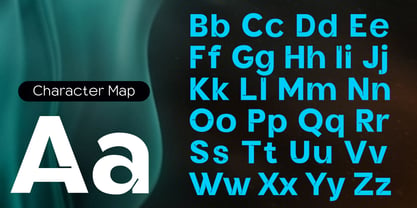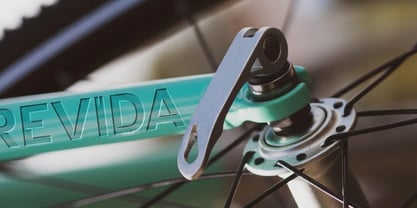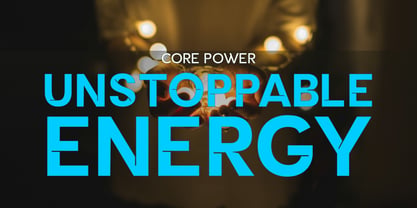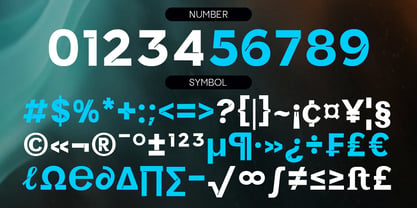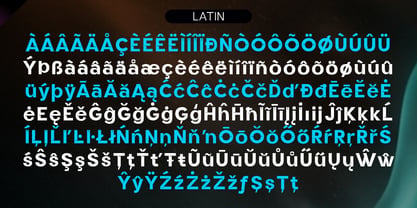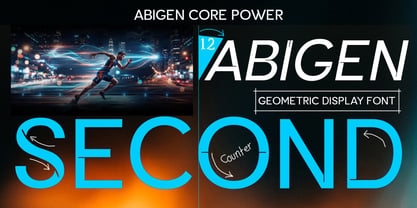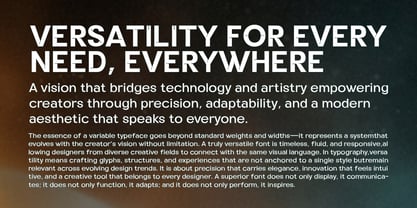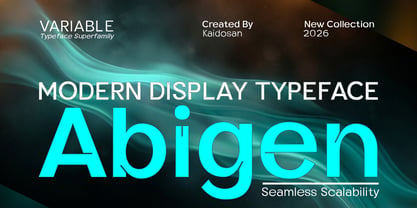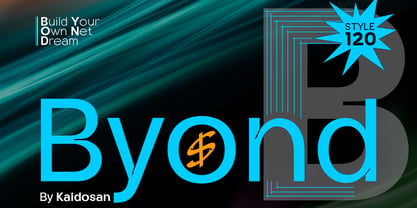
Abigen
by Kaidosan
The Abigen Font Family was designed by Muhammad Ansari and published by Kaidosan. Abigen contains 120 styles and family package options. More about this family
Abigen – Modern Display Typeface
Abigen is a modern display typeface superfamily designed for bold, contemporary design. Featuring 120 styles plus a Variable Font, it offers outstanding flexibility for creating striking typography across print and digital media.
With clean geometric forms and balanced proportions, Abigen is perfect for branding, logos, headlines, posters, editorial design, packaging, advertising, web design, and social media. The Variable Font provides smooth weight control, making your workflow faster and more efficient.
Features
• 120 Font Styles
• Variable Font Included
• Modern Display Typeface
• Multilingual Support
• OpenType Features
Create bold. Design without limits.
Designers: Muhammad Ansari
Foundry: Kaidosan